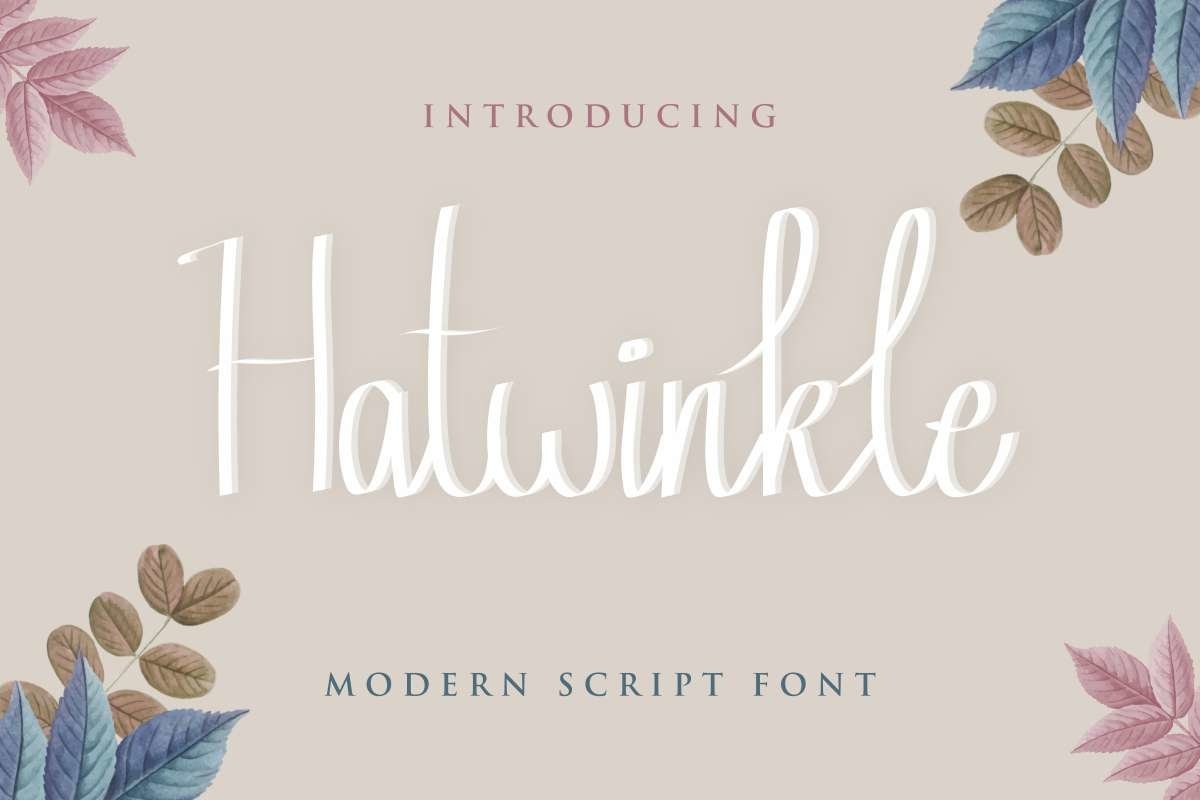
Hatwinkle
This is a display script font family made in Bandung-Indonesia. It has three styles : Reguler and Italic. Made by Widi and Sarah in Bandung and Garut – Indonesia.Once purchased, you will get full access and the zip package will contain:
Hatwinkle Calligraphy Font has great set of glyphs , you can explore further more using this font. It will suit many projects : Logo type, flyer, stationery, business card, signage, flyer, brochure etc.  With your creativity, there’s no limit using with this font. Hatwinkle Calligraphy Font will be awesome for Wedding, Florist, musician, makeup artist, events, promotions, gardening, fashion, gift etcThis font tested Works on PC & Mac with Simple installations. Accessible in the Adobe Illustrator, Adobe Photoshop, Adobe InDesign, even work on Microsoft Word. It’s also PUA Encoded Characters – Fully accessible without additional design software.Purchase with confidence! =)